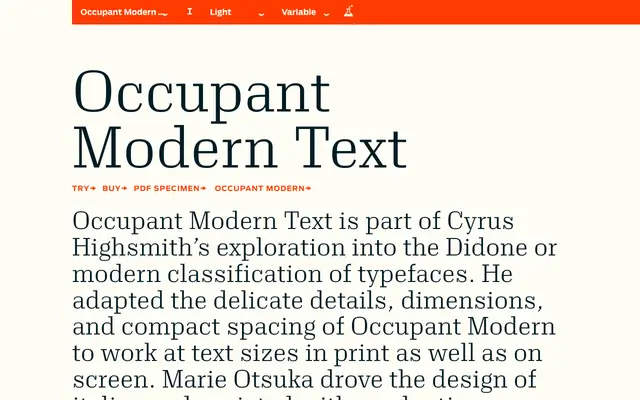
Occupant Modern Text
A text-optimised Didone by Cyrus Highsmith, adapted from Occupant Modern with refined spacing and detailing for smaller sizes in print and on screen.
Developed by Cyrus Highsmith from his display-oriented Occupant Modern, this text cut adjusts the delicate stroke contrast, proportions and spacing to hold up at running-text sizes across both print and digital media. Marie Otsuka designed the italics and assisted with production, contributing to a five-weight family with matching italics and small caps. Language coverage spans Latin Extended, Cyrillic and Greek, with a thorough range of figure styles including oldstyle, tabular and superior figures.
Explicitly positioned within the Didone or modern classification by the foundry, with high contrast strokes and compact spacing adapted from the display-oriented Occupant Modern for text use.